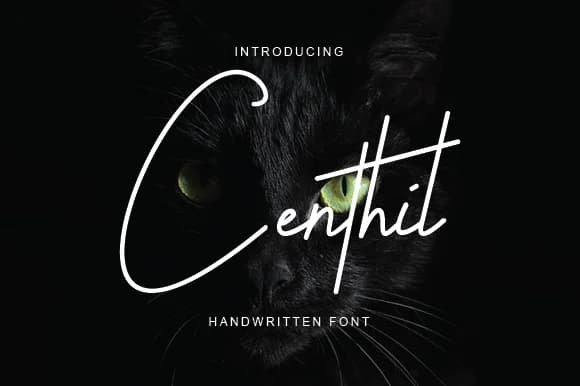
Picture a luxury candle label catching light on a shelf, or a handwritten-style header on an indie product website. Centhil Font by Febri Creative brings that balance of lightness and confidence to designs that need to feel both refined and approachable. It's a script that doesn't whisper, but it doesn't shout either.
The font works beautifully for wedding invitation suites, boutique packaging design, and personalized branding for small cosmetics lines. You'll find it equally at home in greeting cards and custom social media graphics, anywhere the handwritten touch truly matters. On signage and large displays, it reads cleanly without losing the organic feel that makes script fonts so compelling. The light weight gives the letterforms room to breathe while keeping enough presence to stand out.
What sets Centhil apart is the tension between delicate strokes and assertive curves. There's genuine personality in every letter. It comes in multiple weights, so you can dial up the impact when your design calls for it, or keep things intimate and refined. That flexibility means one font can work across an entire brand system. Grab it on Creative Fabrica and you'll find it genuinely indispensable for high-end packaging, invitations, and any branding that needs authentic character.
Centhil Font is a script font that shines as a display or heading face. Pair it with a clean sans-serif or serif font for body text β the contrast creates a clear hierarchy while the two styles stay balanced and easy to read.